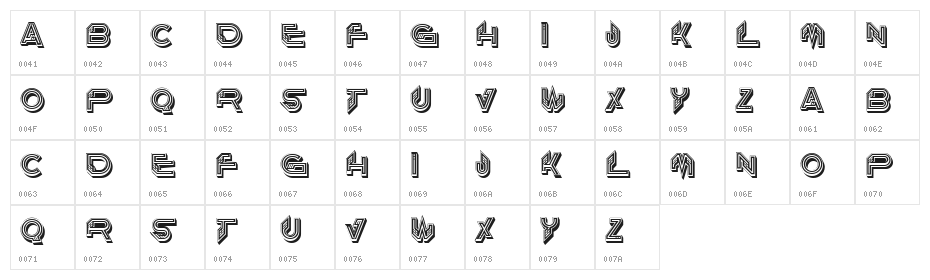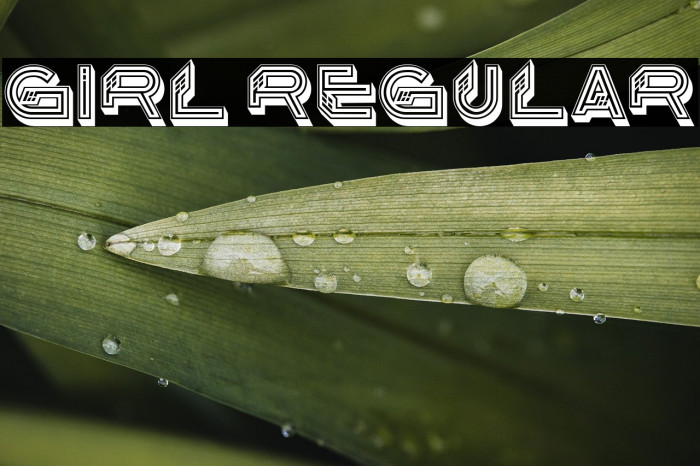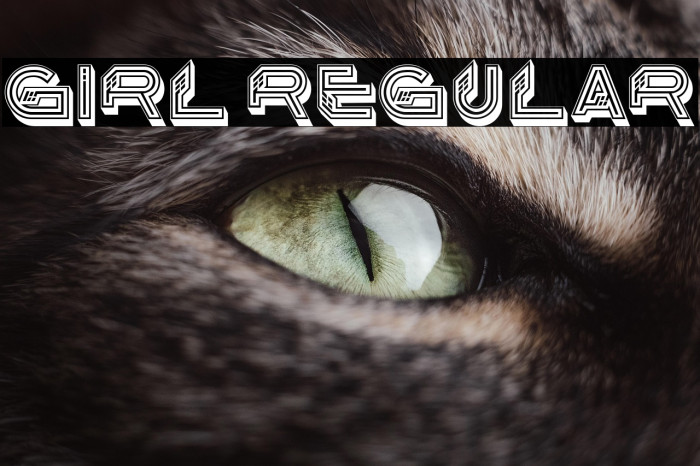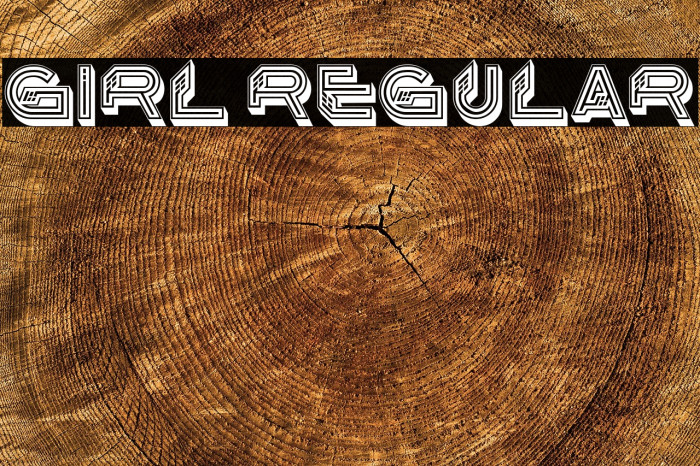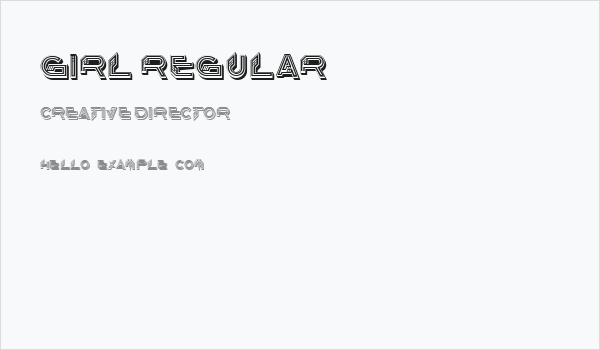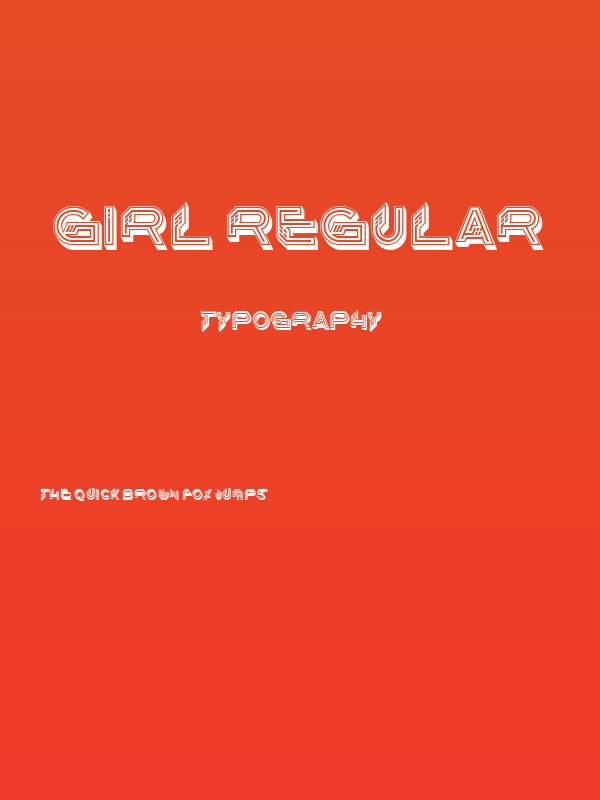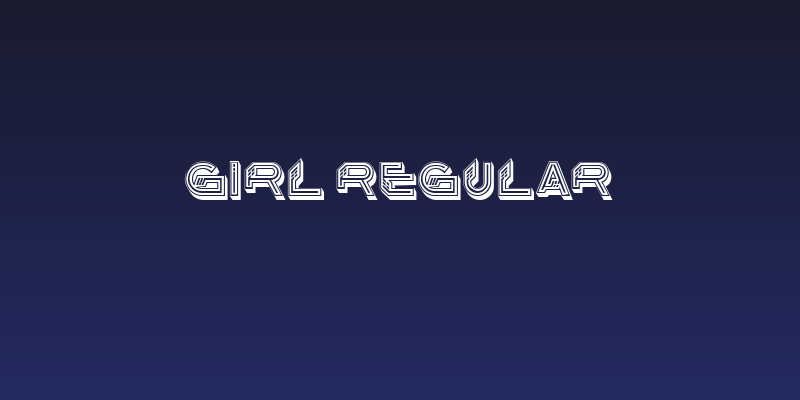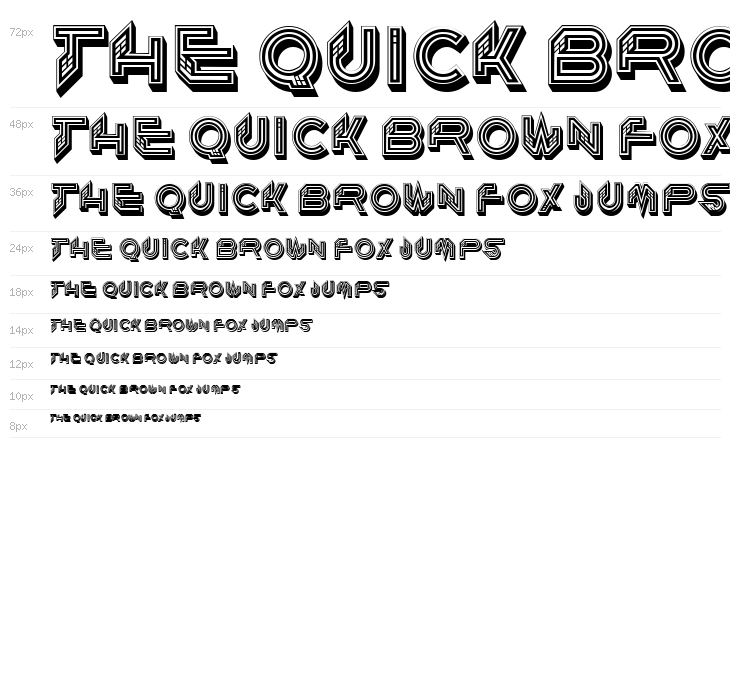
Girl Regular Font
Girl Regular Description
This font features a bold, geometric design with a three-dimensional effect created by layered lines and shadows. The uppercase letters are structured with sharp angles and a distinct blocky appearance, giving it a futuristic and dynamic look. The font's unique style is characterized by its intricate line work and the illusion of depth, making it stand out as a decorative choice. The consistent use of parallel lines and shadows across all characters adds to its cohesive and striking visual impact.
| Proposed Projects | Ideal for eye-catching posters, modern branding, video game titles, and futuristic-themed designs. |